Scream 7 Font
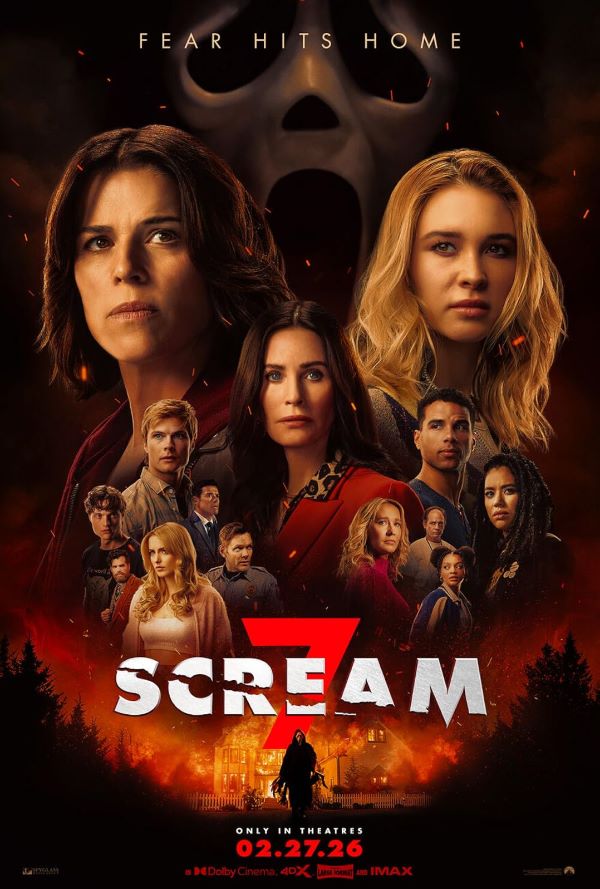
The Scream 7 Font used in the movie’s promotional materials and title design is Scream, a typeface created by Samuel Park. It is a display horror font with sharp, jagged strokes and eerie silhouettes that capture the thrilling, suspenseful, and chilling aesthetic associated with the Scream franchise. The distressed, dramatic letterforms help reinforce tension and horror in posters, trailers, and marketing assets. Scream by Samuel Park is available for free download, making it a popular choice for fan art, Halloween projects, and horror-inspired designs.